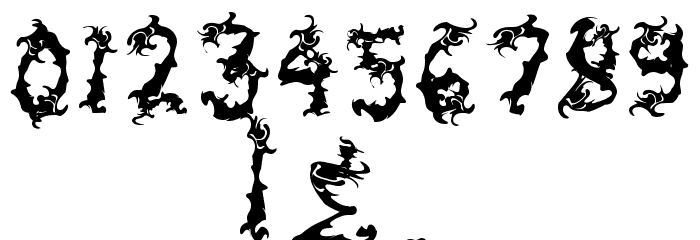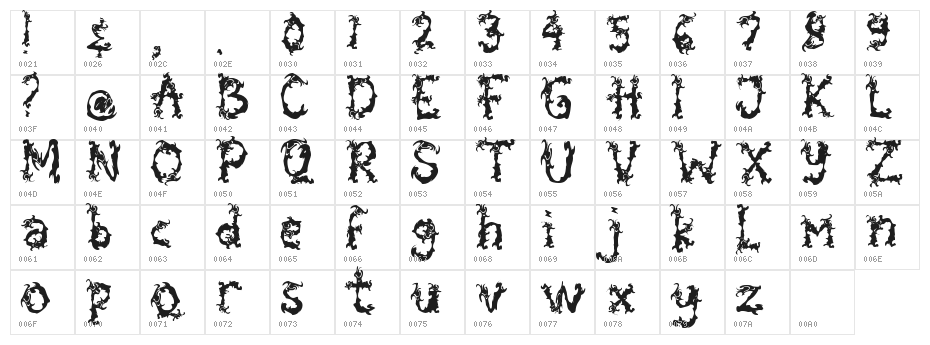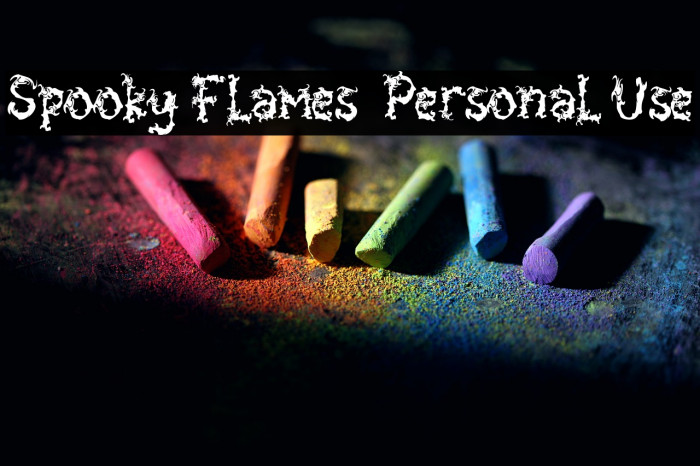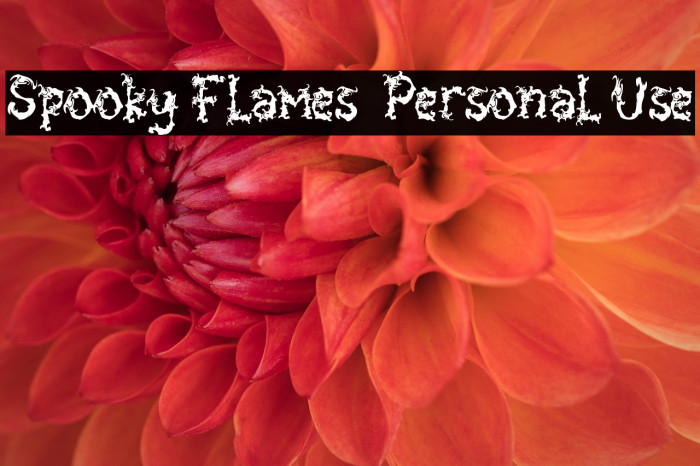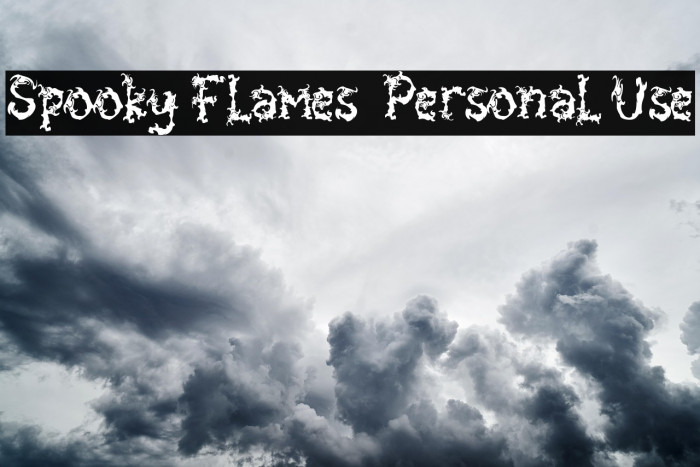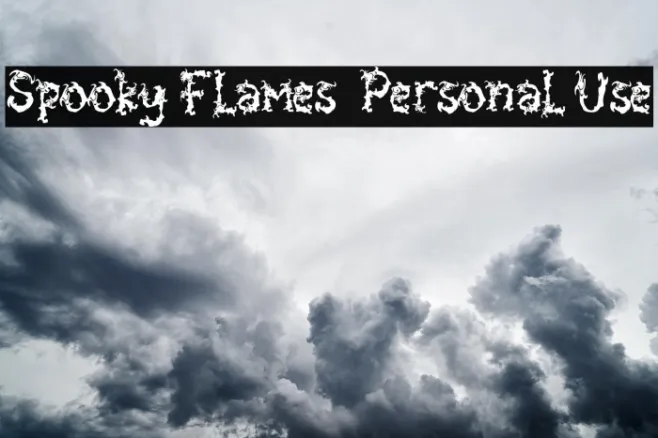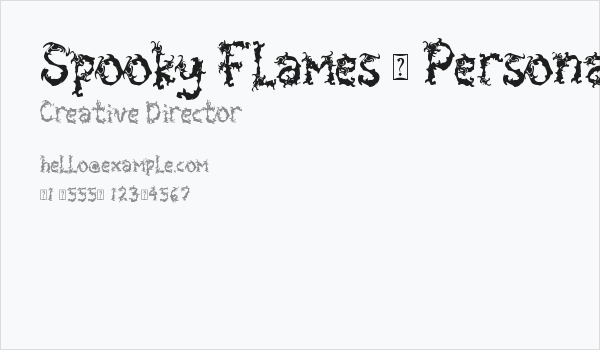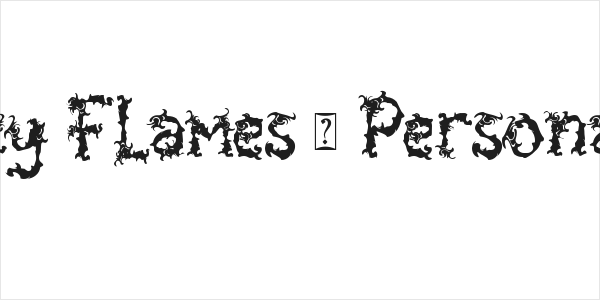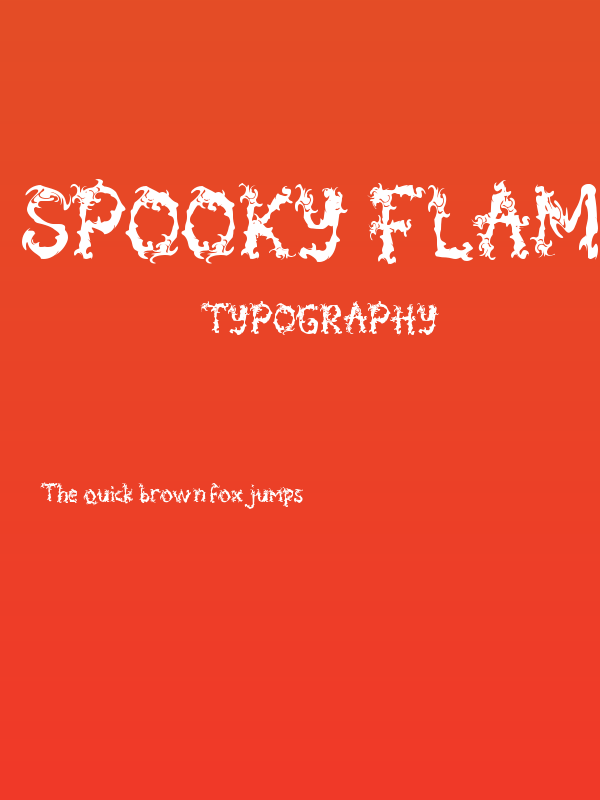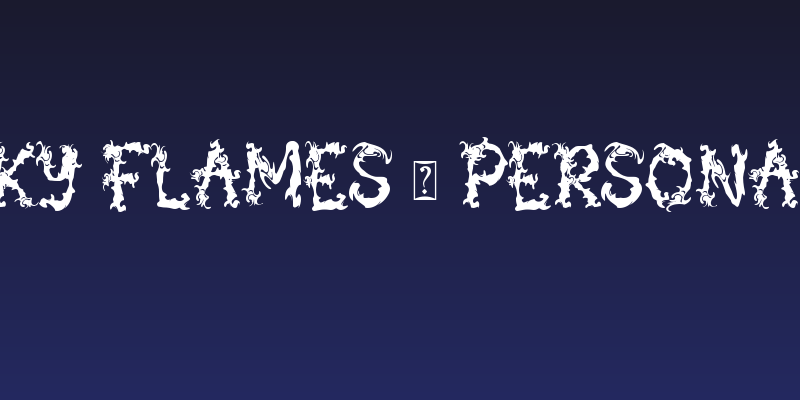
Spooky Flames - Personal Use Font
Spooky Flames - Personal Use Description
This font exudes a haunting and fiery aesthetic, with each character enveloped in flame-like embellishments that create a sense of movement and intensity. The uppercase and lowercase letters maintain a consistent style, with swirling, flame-like extensions that give the impression of burning or flickering. The numbers and special characters follow the same theme, ensuring a cohesive look across all glyphs. This font is ideal for creating a dramatic and eerie atmosphere, perfect for Halloween-themed projects or any design requiring a touch of the supernatural.
| Proposed Projects | Ideal for Halloween invitations, horror movie posters, themed event flyers, and any design needing a spooky, fiery touch. |